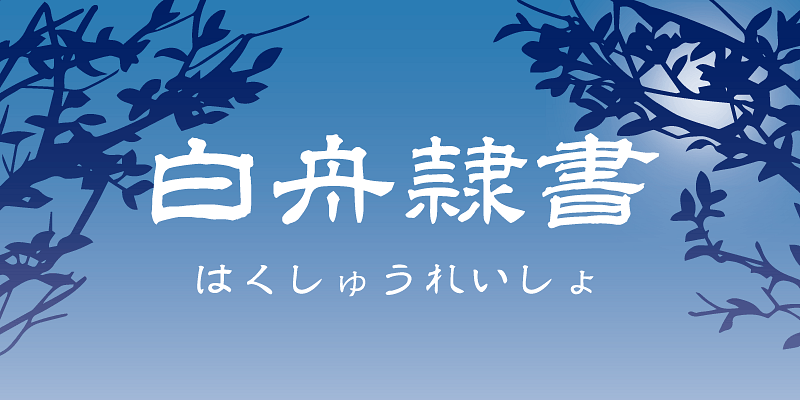
The brush-stroke formation of this reisho (clerical calligraphic style) typeface possesses an elegance faithful to tradition.
Supported glyphs include: 1,026 Kyoiku-yo-kanji (Ideographic Characters for Education), alphanumeric, full-width hira-gana and kata-kana, and miscellaneous symbols.
Hakusyu Fonts
Hakusyu Fonts started business as a seal shop. We offer brush-script typefaces in the traditional regular (kaisho) calligraphic style and the “Design Brush-script” series, which includes the Kyoen and Oohige typefaces, which are very popular and frequently used in creative fields such as publicity and game design.